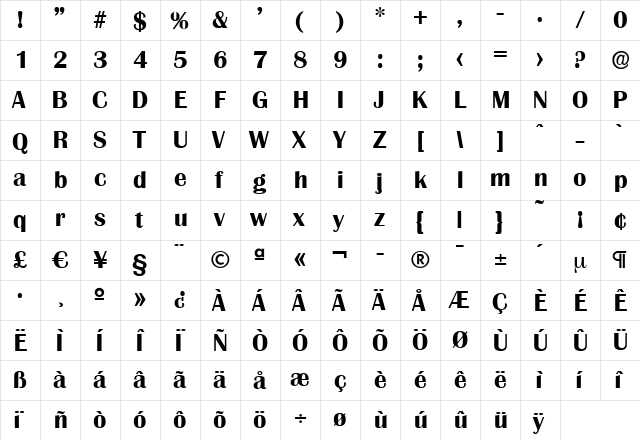
JesseBecker Bold
Design Context for JesseBecker Typeface
JesseBecker takes a measured approach to typography — its balanced proportions and neutral character make it a reliable workhorse for both digital and print work. The heavy weight commands attention and anchors typographic hierarchies.